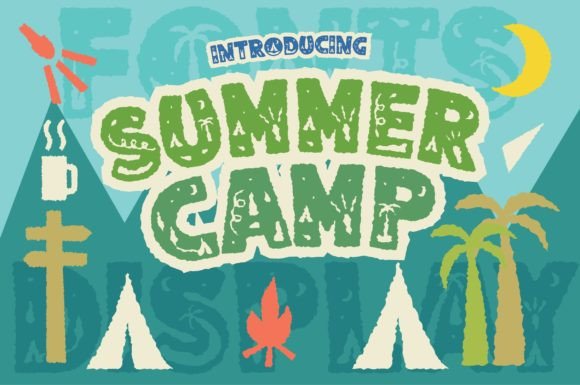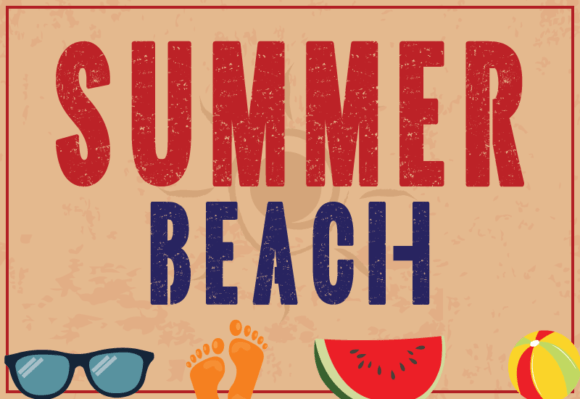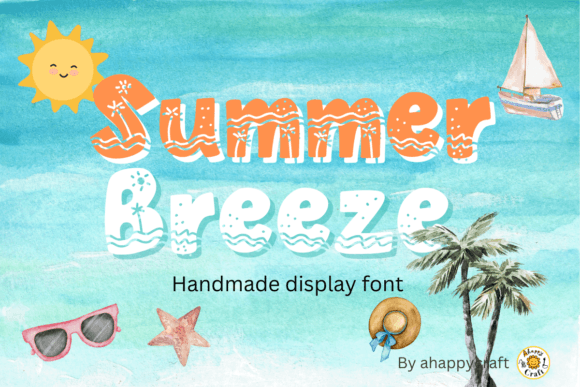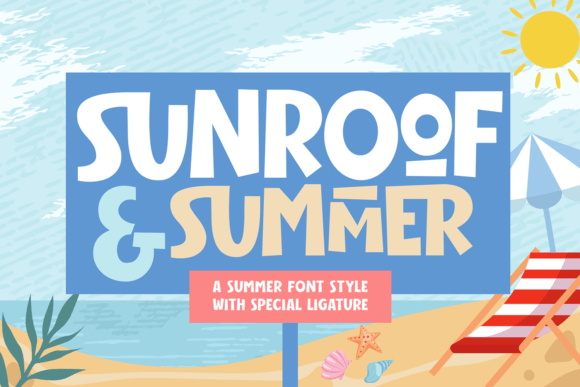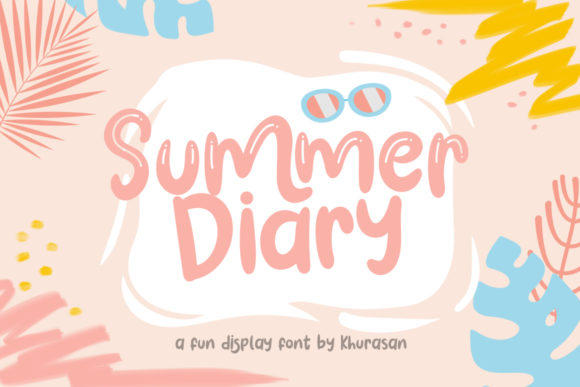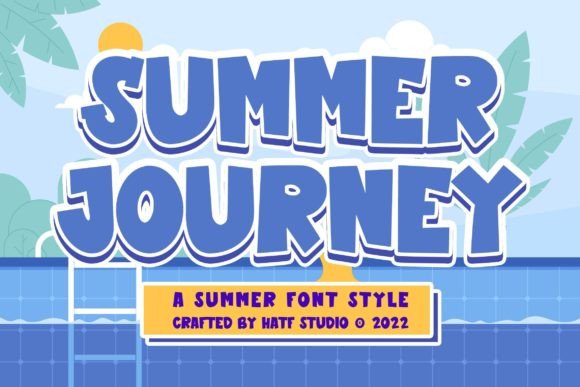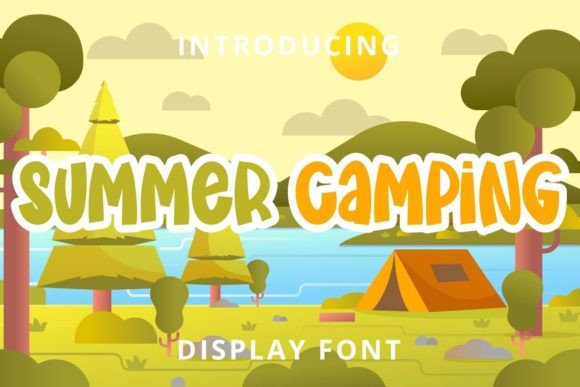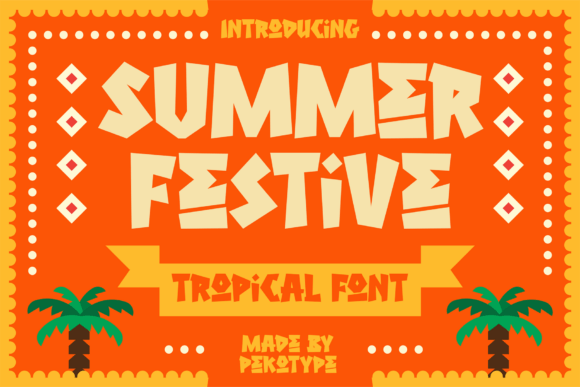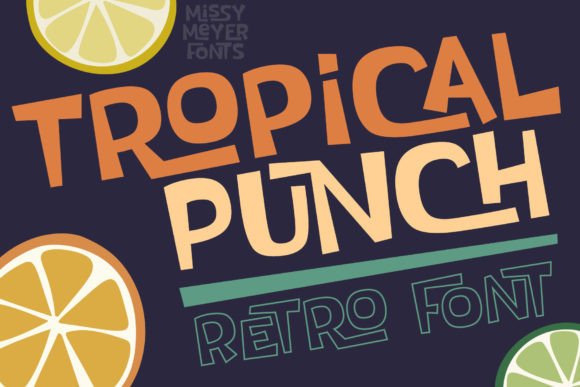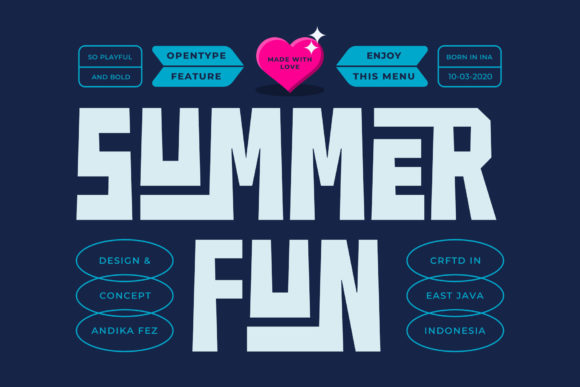
A handpicked stash of retro, sunny typefaces available free for a limited time, ready to brighten designs in just a few clicks.
✨ DECORATIVE
1. Summer Camp Decorative Font Family
Unique, bold decorative font family with an outdoorsy vibe. Includes versatile styles for badges, stickers, and tees.
2. Summer Beach Colorburst Font
Vibrant, sun-soaked letterforms deliver a breezy holiday mood. Includes a cheerful typeface for summer-themed designs.
3. Summer Breeze Decorative Font
Fun, relaxed letterforms with a sunny vibe. Includes a playful decorative font for standout titles.
4. Sunroof & Summer Style Font
A simple, fun, sweet summer-style font with clean charm. Includes letterforms suited to logos, titles, and packaging.
✨ DISPLAY
5. Summer Diary Quirky Colorful Display Font
Quirky, colorful display font with a friendly tone. Includes bold, playful letterforms for standout headlines.
6. Summer Journey Bubbly Display Font
Cool, cute, bubbly display lettering with a youthful feel. Includes one playful font for bright, joyful designs.
7. Summer Camping Playful Display Font
Thick, cute display lettering with a friendly, playful feel. Includes a full font for bold, authentic titles.
8. Summer Festive Tropical Display Font
Bold tropical display font with vintage surf flair. Includes hand-carved wood-style letterforms.
9. Tropical Punch Retro-Tropical Ligature Font
Retro-tropical display font packed with nearly 200 nesting ligatures and alternates. Includes dingbats, catchwords, Greek caps, and 300+ Latin characters.
10. Summer Fun Bold Chunky Display Font
Bold, chunky display letters with a powerful, distinct look. Includes an all-caps font set for standout titles.
11. Summer Splash Display Font
Bright display font with playful, summery character shapes. Adds a unique, fun accent to designs.
12. Soft Thick Retro Display Font Collection
Plush, chunky display fonts with retro-vintage charm and bold character. Includes sublimation, SVG, and Cricut-ready styles for print and branding.
13. Tropical Mango Sans Display Font
Rounded, airy sans display with a modern tropical vibe. Includes clean and outline letterforms for versatile styling.
14. Summer Holiday Magical Display Font
Magical display lettering with a refined, elegant flair. Includes one font that elevates headlines and crafts.
15. Summer Colorful Groovy Retro Display Font
Playful 70s-inspired display font with rounded bubble shapes. Colorful, nostalgic letterforms add joyful impact.
16. Looking for Summer Bold Display Font
Bold, playful display letterforms with a versatile, upbeat tone. Includes a complete font for standout headlines and logos.
17. Certoon Summer Display Font
Bold, vibrant display font with sun-soaked energy. Includes expressive letterforms for stickers, prints, and tees.
18. Shummer Show Summer Display Font
Playful display font blending fresh letterforms with vintage flair. Includes a bold set of stylish characters.
19. Summer Shadow Display Font
Cute, playful display lettering with a bold shadow look. Includes a versatile font for standout designs.
20. Segaro Summer Groove Display Font
Chunky rounded letterforms with a groovy retro, sunlit vibe. Includes shadow style, alternates, and ligatures.
21. Hello Summer Quirky Bold Display Font
A cute, quirky bold display font that adds lively charm. Includes the Hello Summer typeface for standout lettering.
22. Summer Blaster Bold Display Font
Bold, colorful letterforms deliver a friendly, high-impact look. Includes a versatile display font for standout titles.
23. Summer Camp Playful Display Font
Playful bold display font with cheerful summer energy. Includes one fun typeface for standout titles.
24. Loku Pokan Tropical All-Caps Display Font
Playful, hand-drawn all-caps display font with bouncy tropical energy. Includes multilingual support and PUA-accessible characters.
25. Summer Dreamer Handwritten Display Font
Playful summer display lettering with a distinctive handwritten feel. Includes a full character set for standout design work.
26. Hello Summer Cheerful Display Font
Cute, cheerful display font with a bright summer feel. PUA encoded with alternates, ligatures, swashes.
27. Summer Playful Bold Display Font